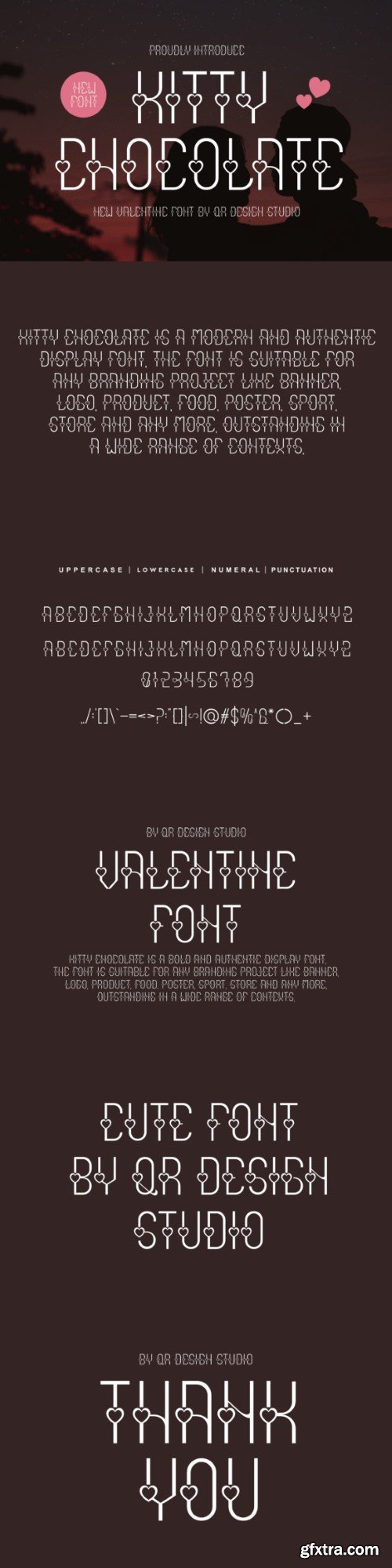
基特巧克力字体
Kitty Chocolate Font is a decorative and authentic display font.
The font is suitable for any branding project like logo, sport, and many more.
Outstanding in a wide range of contexts.